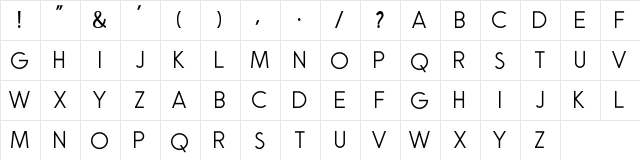
Natalia Rosaline Sans Demo Regular
| Foundry | Runsell Studio |
| Designer | Edi Gunawan |
Design Context for Natalia Rosaline Sans Demo Typeface
Natalia Rosaline Sans Demo is a composed and adaptable typeface that performs quietly and consistently across a wide range of design contexts.
Pro Tip: Use Natalia Rosaline Sans Demo in both headline and body roles to test its range before committing to a single application.